Looking for tropical fonts to give your designs a breezy, island-ready makeover? This curated collection of 23 handpicked tropical typefaces brings beachy lettering, island-inspired scripts, and exotic display options to your toolkit in 2026.
From playful brush scripts and palm-inspired lettering to bold summer display fonts, you’ll find styles perfect for logos, packaging, posters, and social graphics. Each font was chosen for its personality, legibility, and pairing potential so you can build cohesive seaside or tropical-themed branding.
Whether you need retro surf vibes, modern minimalist island type, or handwritten beachy fonts, the list below includes versatile choices and quick tips on how to mix and match them for maximum impact. Use these island and beach-inspired typefaces to evoke warmth, adventure, and relaxed sophistication in your designs.
1. Tropical Paradise Font
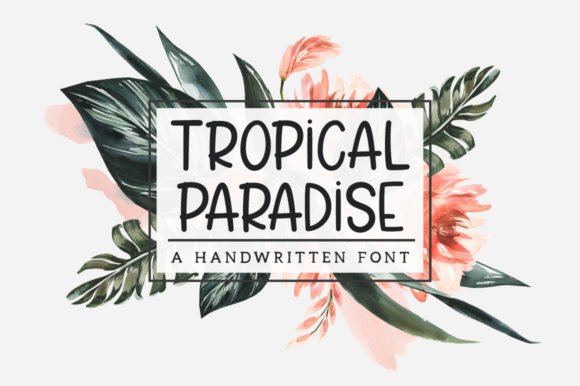
Tropical Paradise reinterprets classic calligraphic forms into a breezy, hand-drawn script that instantly evokes island breezes and sunlit signage. As a member of the tropical fonts conversation, it balances refined pen strokes with relaxed terminals so headlines feel both elegant and approachable.
The typeface scales confidently from bold display sizes down to tighter text blocks, maintaining readable counters and lively rhythm between letters. Subtle variations in stroke width give it personality for packaging, web hero banners, and luxury-resort branding without feeling gimmicky.
Designers will appreciate its selection of alternates and ligatures that create natural word shapes, plus sensible spacing that reduces manual kerning. Pair it with a neutral sans or a warm serif to amplify contrast for wedding stationery, travel posters, or lifestyle products that need an island-inspired yet polished look.
My Recommendation: I would reach for Tropical Paradise when a project needs a sophisticated but relaxed script-think boutique resort branding, upscale beach wedding invitations, or editorial covers with a summer theme. Its readable forms and tasteful alternates make it versatile across print and digital. Use it to give layouts a handcrafted, premium personality without sacrificing professionalism.
2. Tropical Paradise Font
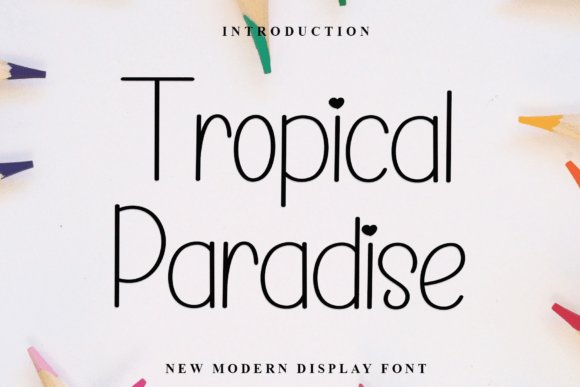
This iteration of Tropical Paradise is a contemporary calligraphic script that leans into polished handwriting with a modern sensibility. The design preserves classic letterform proportions while introducing smooth, flowing connections that feel intentionally crafted rather than casual.
It’s PUA-encoded, which makes accessing its decorative glyphs and ligatures effortless in most design apps-ideal for creative teams who want fancy alternates without digging into OpenType menus. The restrained stroke contrast and careful x-height make it suitable for prominent headings and elegant subheads across print and web.
Use this version when you need a refined, human touch: upscale product labels, editorial mastheads, or signage where calligraphic charm conveys craftsmanship. Pair it with clean geometric type for contemporary hospitality or lifestyle brands that want a crafted yet modern presence.
My Recommendation: I recommend this Tropical Paradise when a project needs classic calligraphy updated for modern use-excellent for branding, premium packaging, and invitations. The PUA encoding simplifies working with swashes and alternate glyphs, saving time in layout. It’s a go-to when you want handwritten warmth without compromising tidy, professional letterforms.
3. Tropical Punch Font
Tropical Punch is a retro-inspired display face packed with personality: think mid-century beach signage turned into a type system. Its lively letterforms come alive through an extensive library of nearly 200 multi-letter ligatures that let you produce playful, bespoke wordmarks and head-turning headlines.
The family includes an outline companion that layers perfectly with the solid cuts, enabling clever two-tone or stacked effects for posters, beverage labels, and tiki-bar menus. Alternate vowels, dingbats, and a set of small catchwords add compositional shortcuts so you can create vintage-catalog layouts without manual illustration.
On the technical side, Tropical Punch supports 300+ Latin glyphs and uppercase Greek characters, and everything is PUA-encoded for straightforward access in most design tools. The included PDF specimen makes exploring alternates and ligatures fast, so you can prototype eye-catching branding and packaging quickly.
My Recommendation: I’d pick Tropical Punch for projects that need bold retro flair-think cocktail menus, festival posters, and nostalgic product labels. The ligatures and outline version let you craft unique headlines and layered branding treatments without extra illustration work. It’s especially useful when you want a cheerful, vintage atmosphere with practical type-system flexibility.
These 23 tropical fonts give you a fast way to inject summery, exotic energy into any project. With options across brush scripts, display faces, and refined serif-inspired tropical typefaces, there’s something for branding, editorial, and social media work.